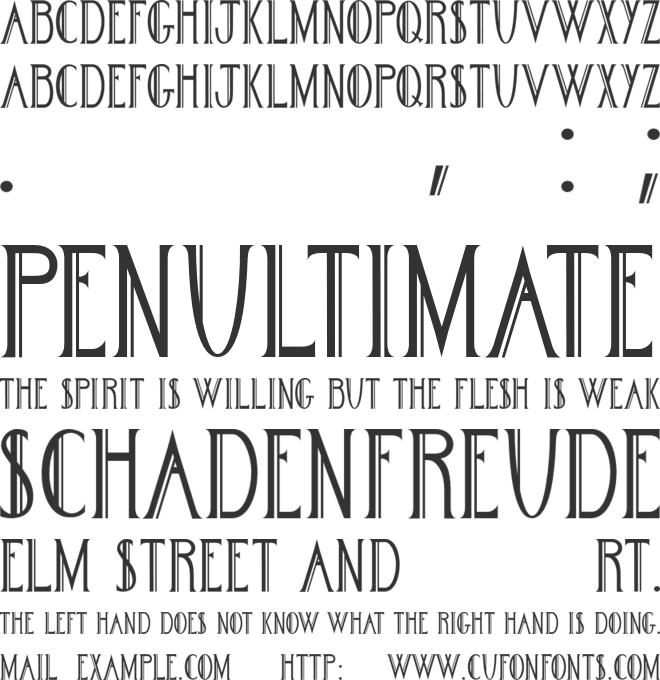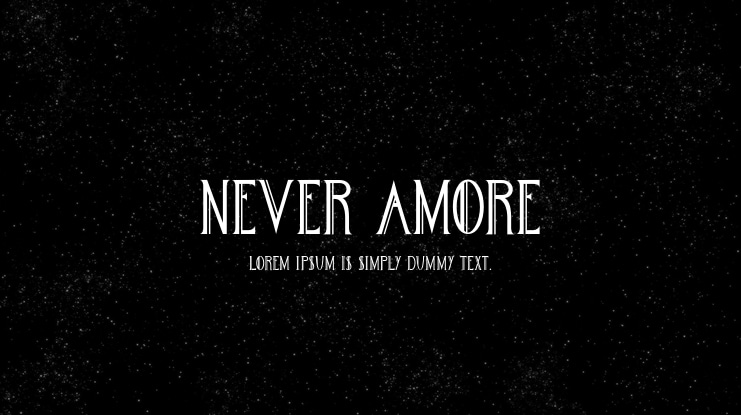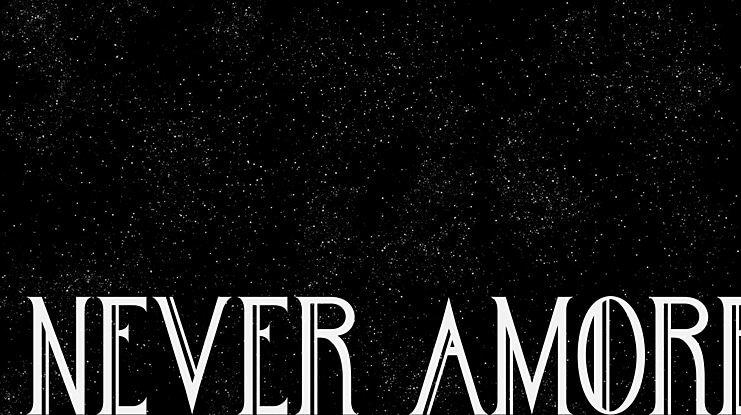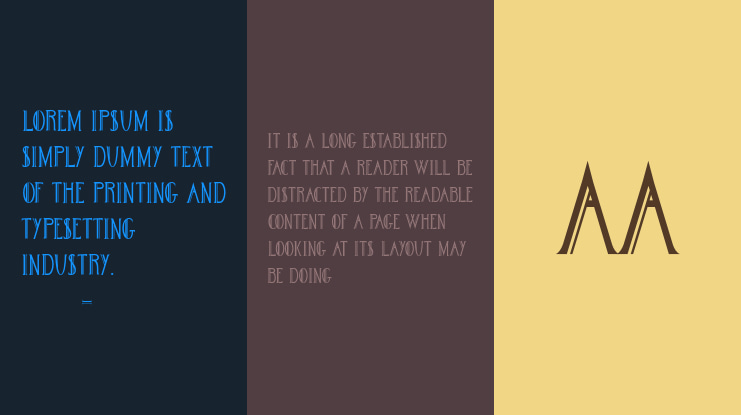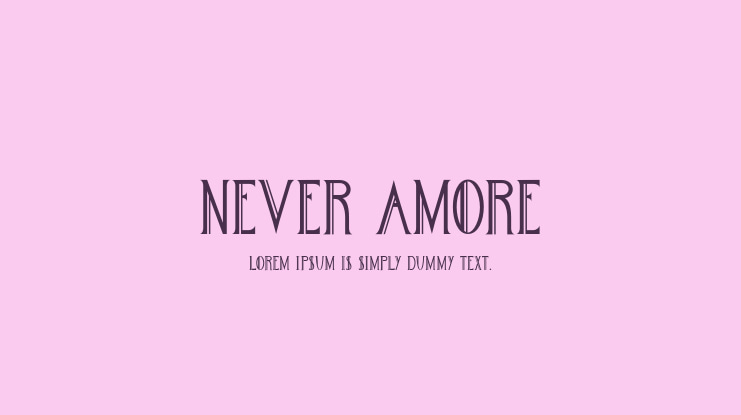
Never Amore Font
Emily Wyatt
Hello! This is the first typeface I have ever created!! Never Amore is an all-caps typeface inspired by both gothic and roman typefaces with an elongated x-height. It brings with it the feeling of Edgar Allen Poes The Raven; mystical and ominous. This typeface pairs well with FreightText, Kopius, Bebas Nueu, and Franklin Gothic and is great for movie posters and book covers.